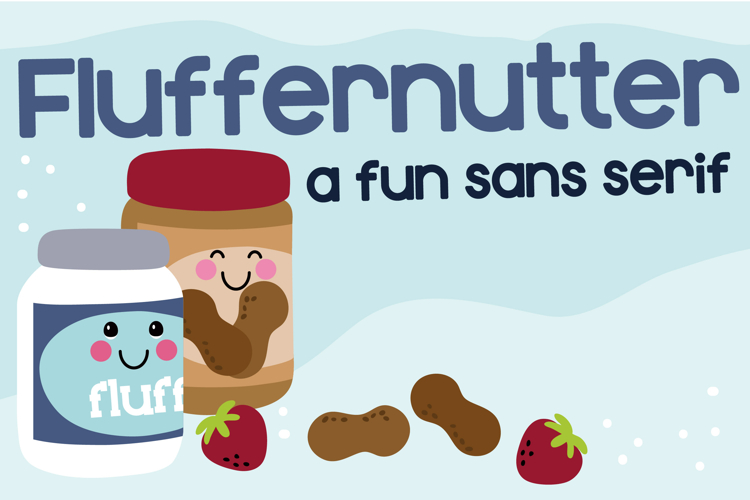
Fluffernutter Font Family
This hand-crafted font is a whimsical, sans serif. A hand-crafted font is a font that is designed to look like it was written by hand. It is often used for invitations, greeting cards, and other items. Handwritten fonts can be either formal or informal, and they can be used for a variety of purposes.